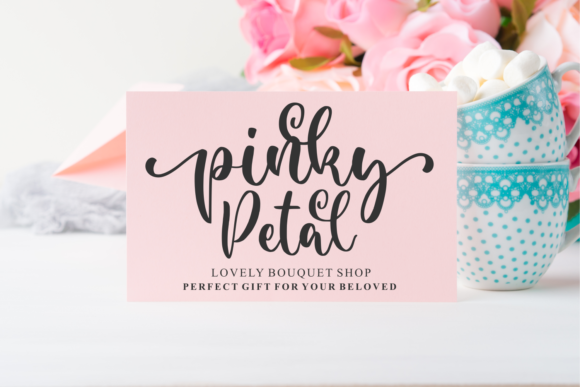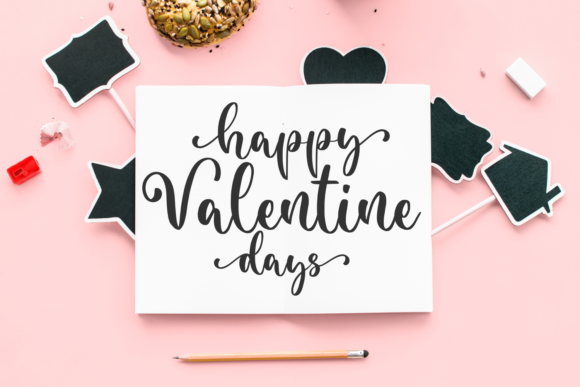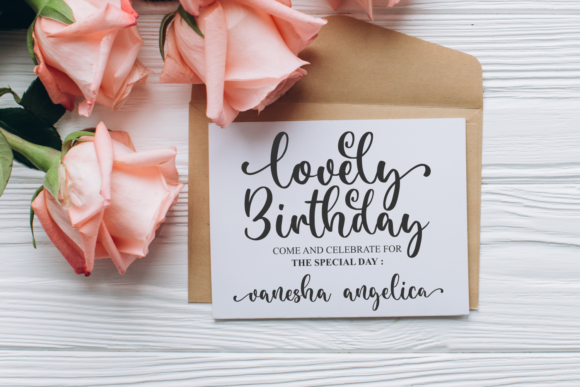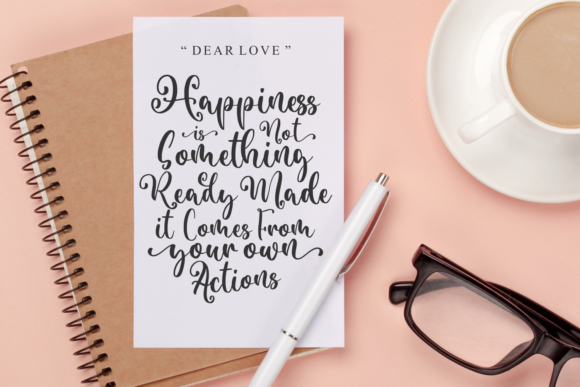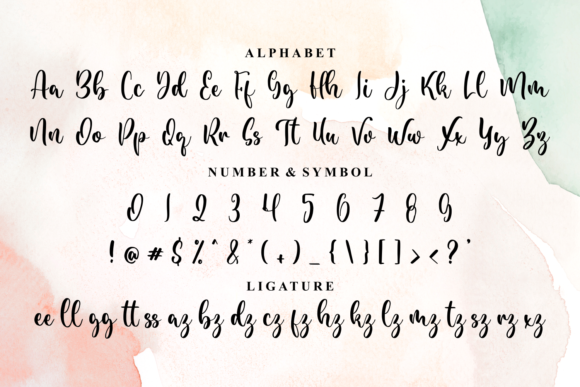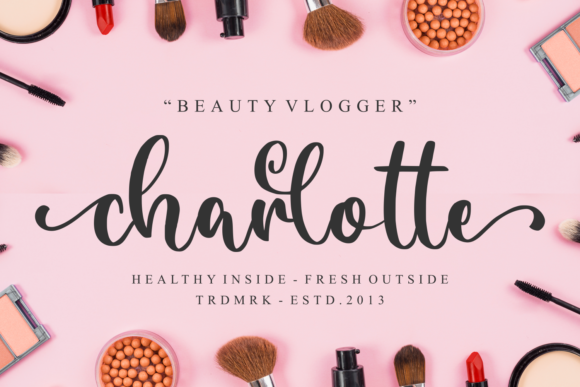
Introducing Happy Monday Font: Elevate Your Designs with Elegance
Are you tired of using the same old fonts in your designs? Do you want to add a touch of elegance and sophistication to your projects? Look no further than the Happy Monday Font, a magical script font that is sure to take your designs to the next level. In this article, we’ll dive into the features and benefits of this beautiful font, and explore how it can be used to elevate your designs.
What is Happy Monday Font?
Happy Monday Font is a carefully crafted script font that exudes elegance and sophistication. With its flowing lines and beautiful swashes, this font is perfect for designers and crafters who want to add a touch of luxury to their projects. Whether you’re working on a branding project, a wedding invitation, or a social media graphic, Happy Monday Font is sure to make your designs stand out.
PUA Encoding: What Does it Mean?
One of the standout features of Happy Monday Font is its PUA (Private Use Area) encoding. But what does this mean, exactly? In simple terms, PUA encoding allows you to access all of the glyphs and swashes in the font with ease. This means that you can easily insert special characters, ligatures, and other decorative elements into your designs, giving them a unique and personalized touch.
Features of Happy Monday Font
So, what makes Happy Monday Font so special? Here are just a few of its key features:
- Magical script font: With its flowing lines and elegant swashes, Happy Monday Font is the perfect choice for designers who want to add a touch of sophistication to their projects.
- PUA encoded: With PUA encoding, you can easily access all of the glyphs and swashes in the font, making it easy to customize your designs.
- Elegant and sophisticated: Happy Monday Font is perfect for designers who want to create luxurious and high-end designs.
- Versatile: Whether you’re working on a branding project, a wedding invitation, or a social media graphic, Happy Monday Font is sure to make your designs stand out.
How to Use Happy Monday Font
So, how can you use Happy Monday Font in your designs? Here are a few ideas to get you started:
- Branding projects: Use Happy Monday Font to create elegant and sophisticated logos, business cards, and letterheads.
- Wedding invitations: Add a touch of luxury to your wedding invitations with Happy Monday Font.
- Social media graphics: Use Happy Monday Font to create eye-catching social media graphics that will help your brand stand out.
- Stationery: Create beautiful stationery, including notebooks, journals, and greeting cards, with Happy Monday Font.
Benefits of Using Happy Monday Font
So, why should you choose Happy Monday Font for your designs? Here are just a few of the benefits of using this beautiful font:
- Unique and personalized designs: With Happy Monday Font, you can create unique and personalized designs that will help your brand stand out.
- Elegant and sophisticated designs: Happy Monday Font is perfect for designers who want to create luxurious and high-end designs.
- Easy to use: With PUA encoding, Happy Monday Font is easy to use, even for designers who are new to script fonts.
- Versatile: Happy Monday Font can be used in a wide range of design projects, from branding to stationery.
In conclusion, Happy Monday Font is a magical script font that is sure to elevate your designs. With its elegant and sophisticated lines, PUA encoding, and versatility, this font is perfect for designers and crafters who want to add a touch of luxury to their projects. Whether you’re working on a branding project, a wedding invitation, or a social media graphic, Happy Monday Font is sure to make your designs stand out. So why wait? Download Happy Monday Font today and start creating beautiful, unique designs that will help your brand shine.